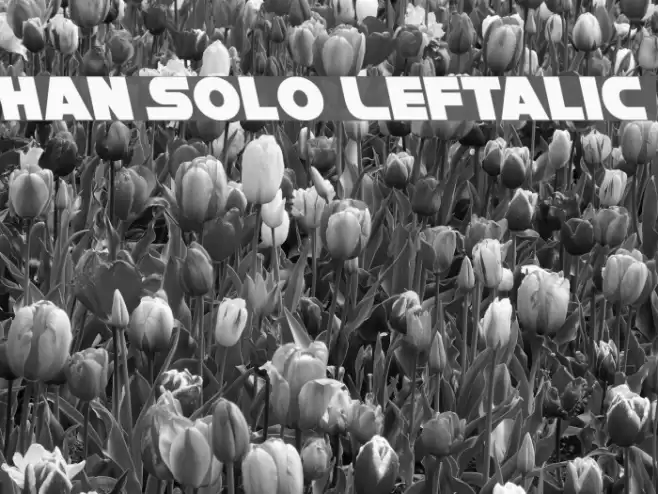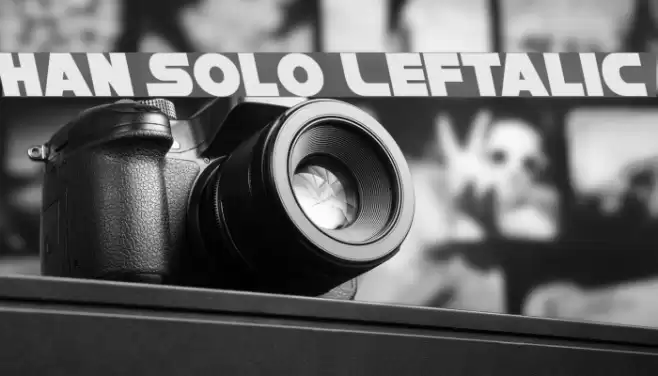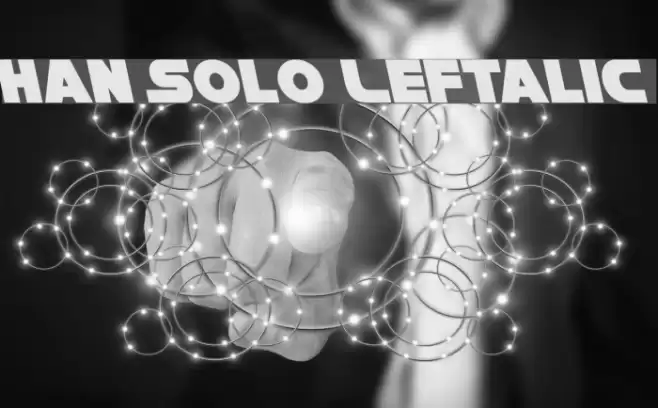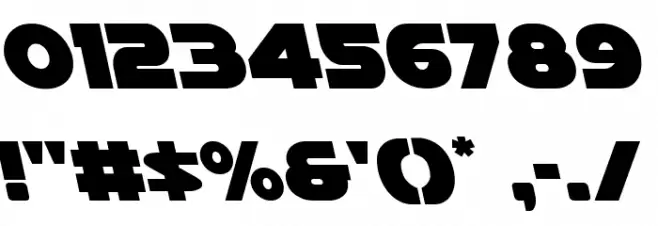
Han Solo Leftalic Font
Han Solo Leftalic Description
This font features a bold, futuristic design with a strong geometric influence. The characters are wide and blocky, with a distinct slant that gives them a dynamic, forward-moving appearance. The uppercase and lowercase letters maintain a consistent style, emphasizing angular shapes and sharp edges. The numbers and special characters follow the same design principles, ensuring uniformity across all glyphs. This font's boldness and unique style make it stand out, ideal for projects that require a modern and impactful look.
A bold, futuristic font with geometric shapes and a dynamic slant from Uncategorized fonts.
- Proposed Projects: Ideal for sci-fi themed posters, video game titles, and branding that requires a modern, edgy look.